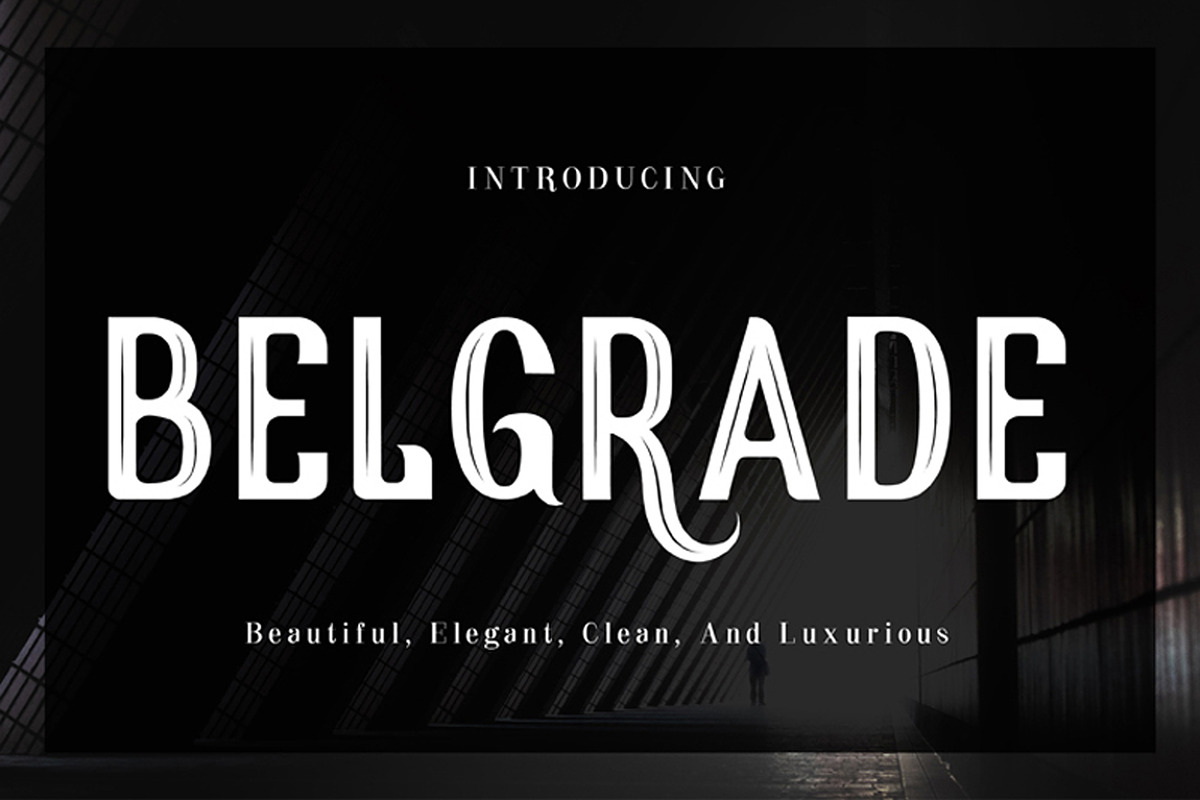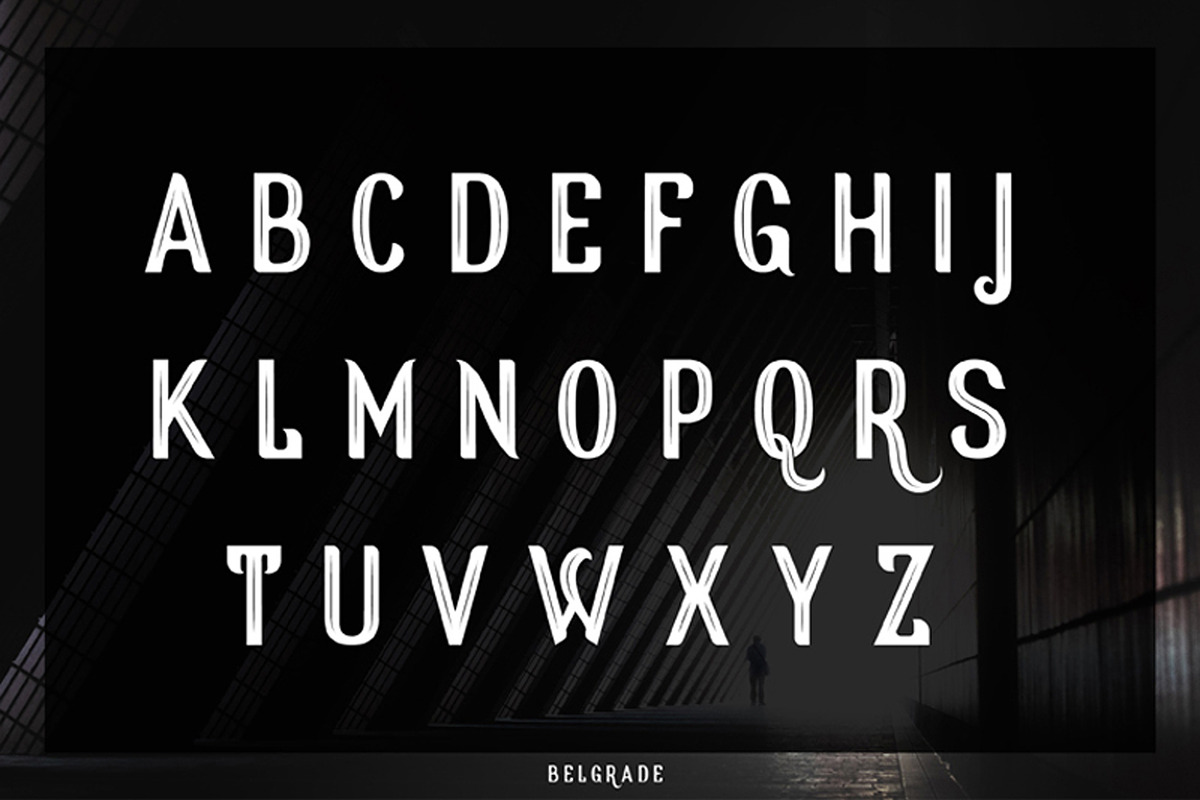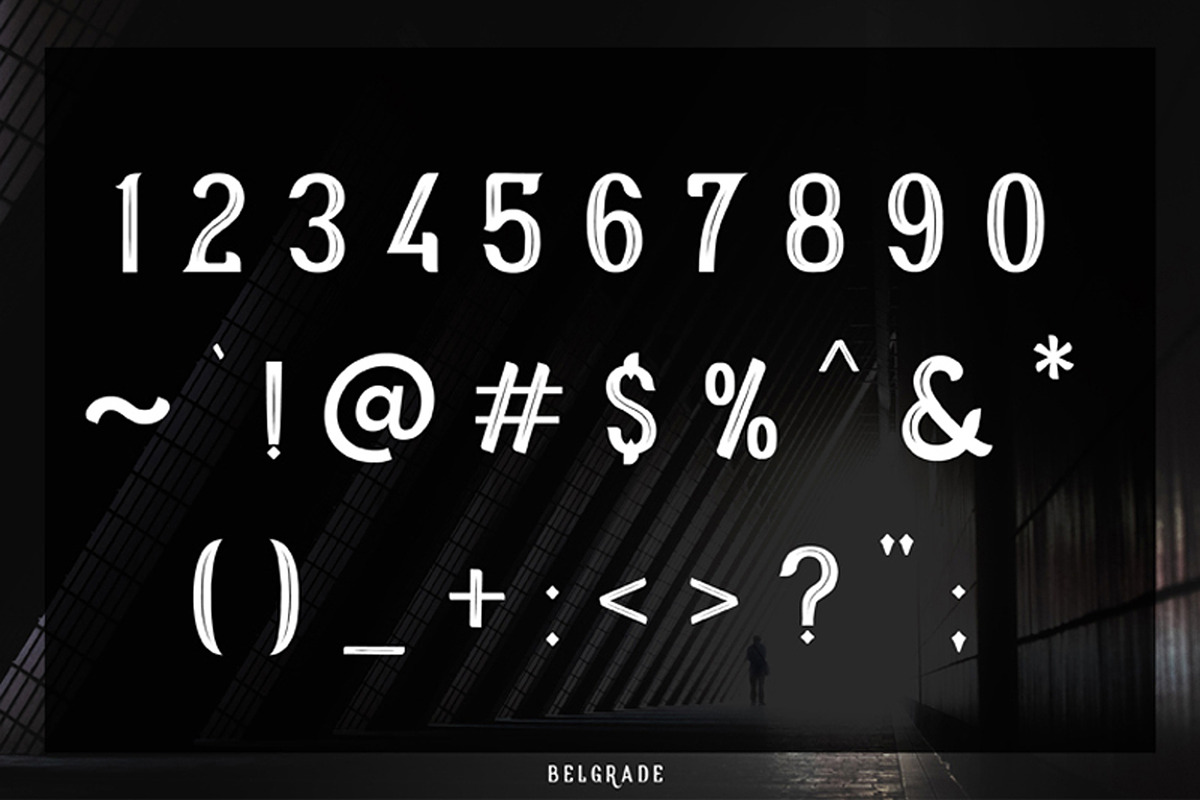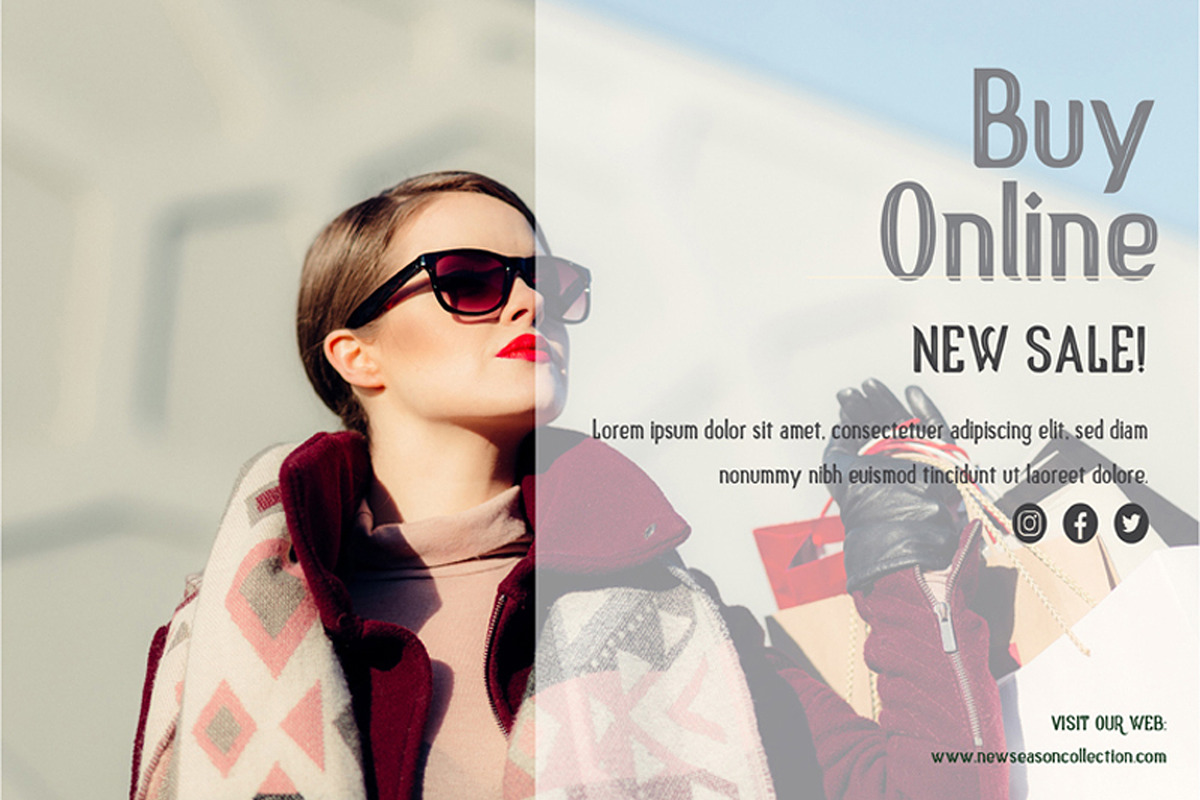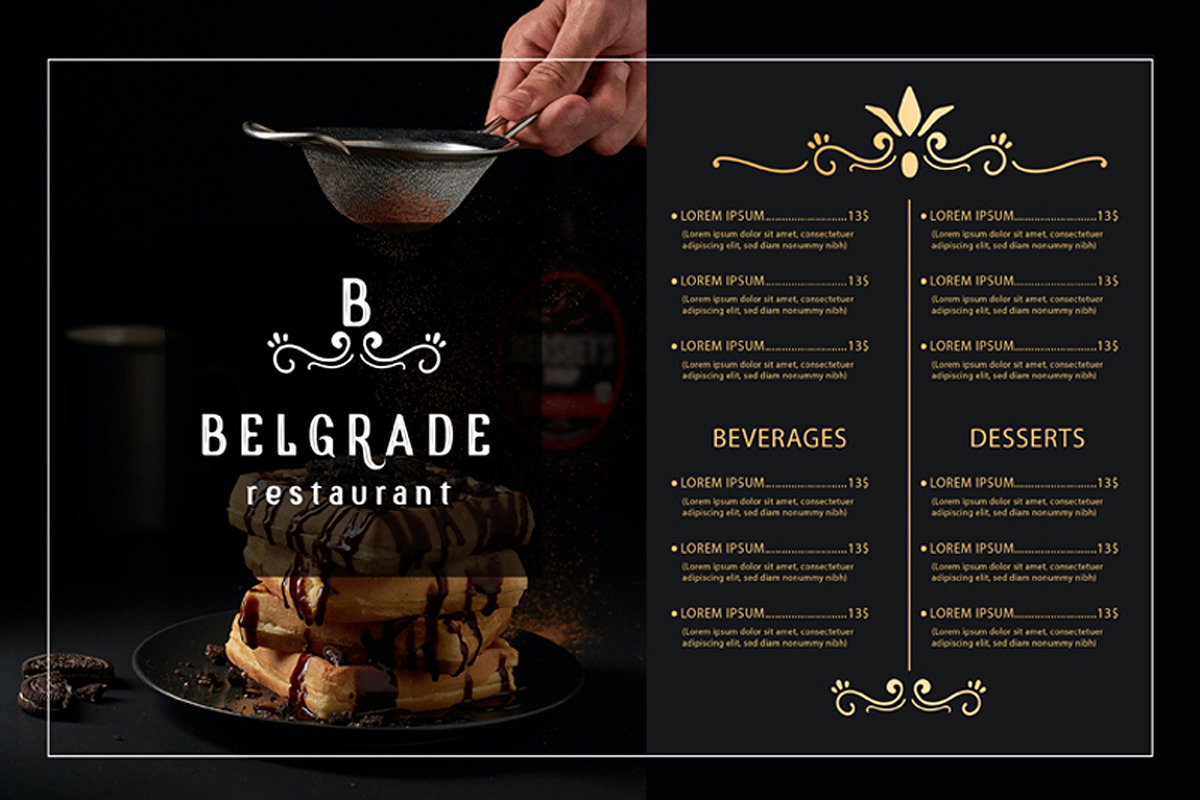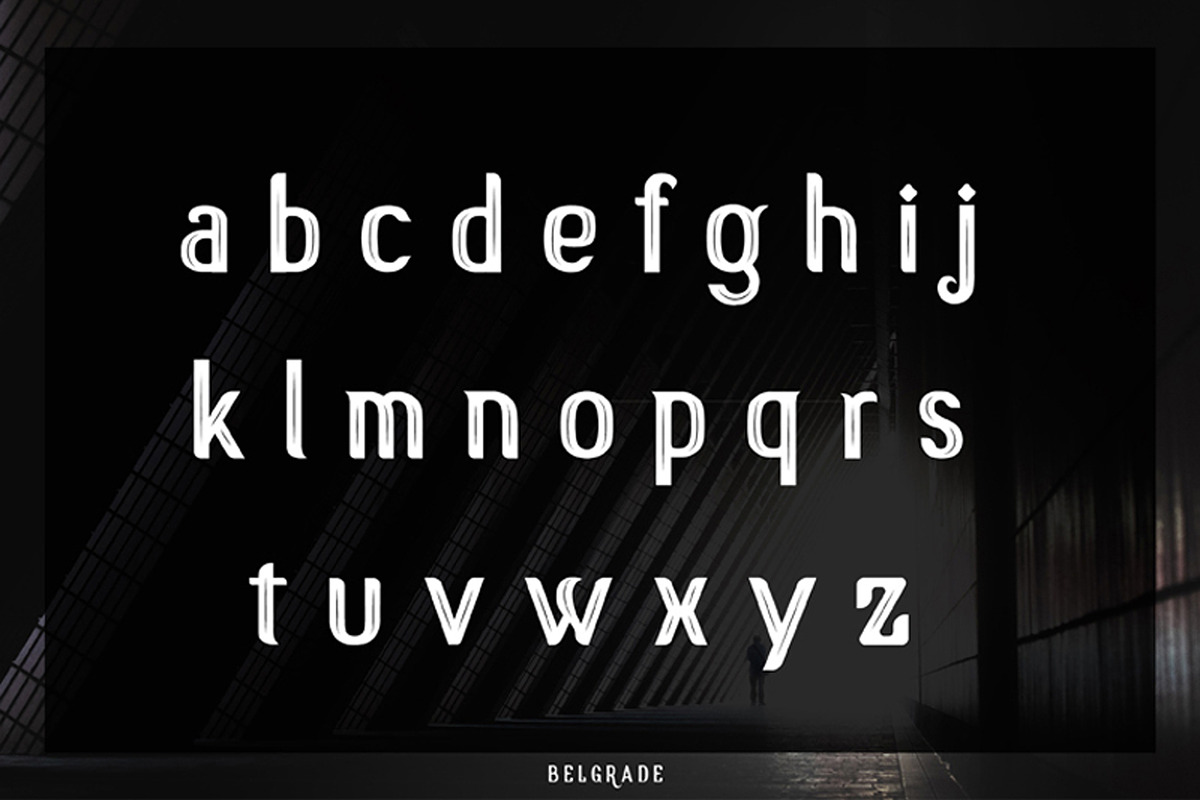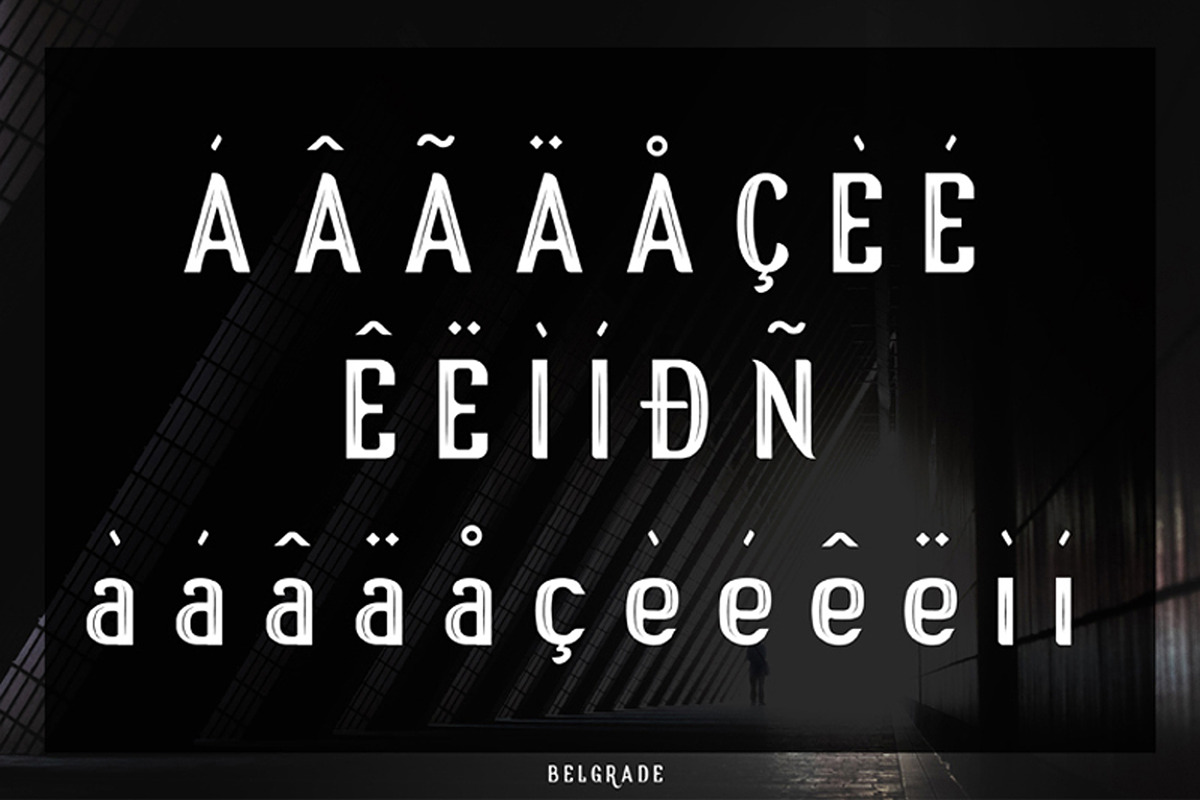
Belgrade
beautiful, elegant, clean, and luxurious Belgrade is a pretty and clean font This font is perfect for complementing your designs, such as wedding cards, t-shirts and others